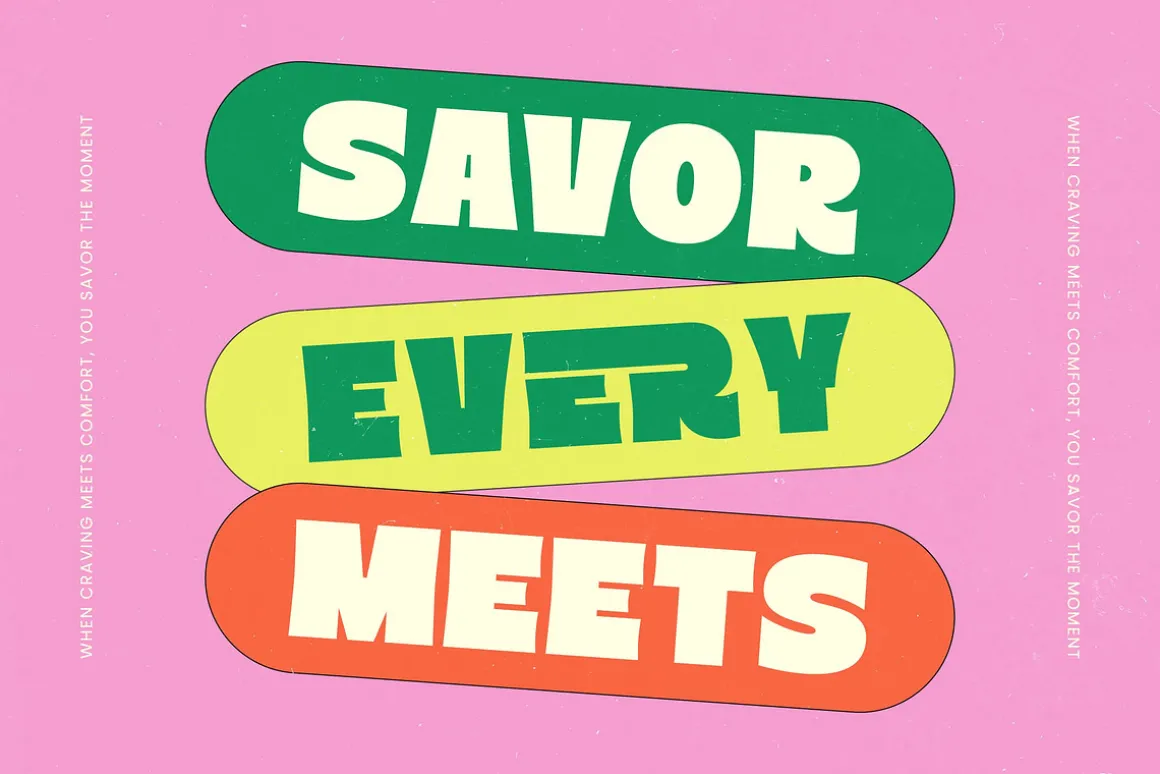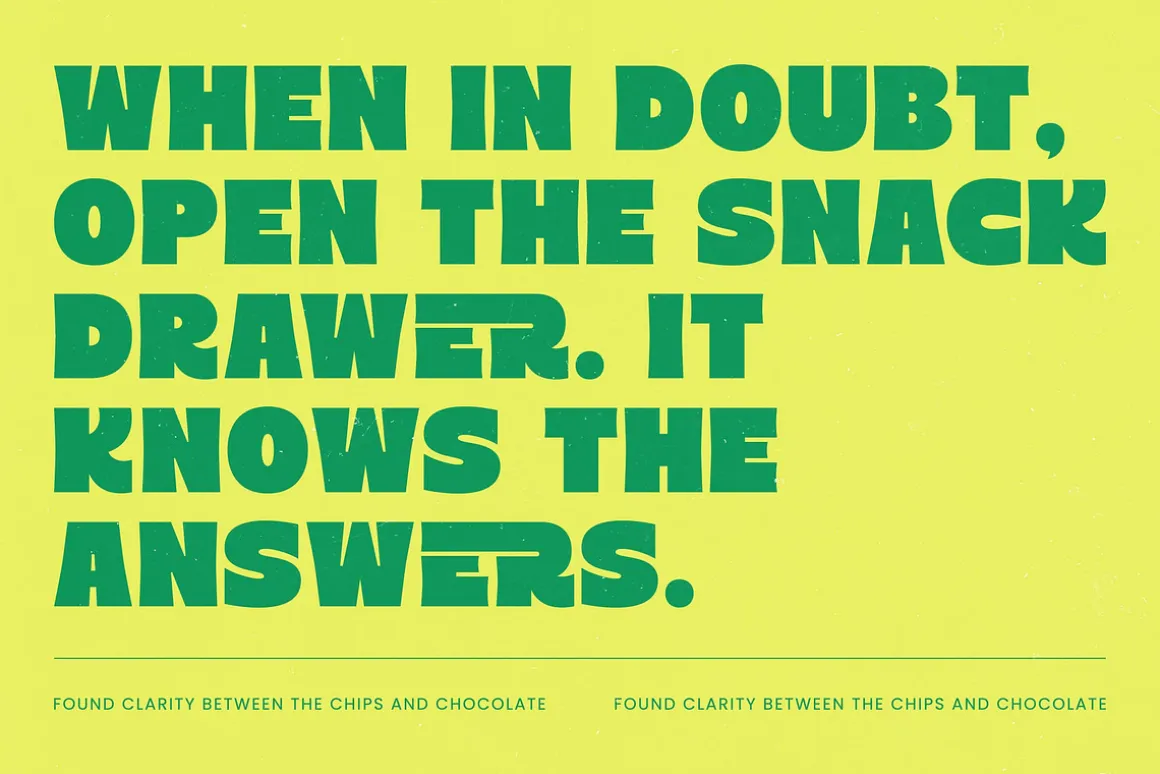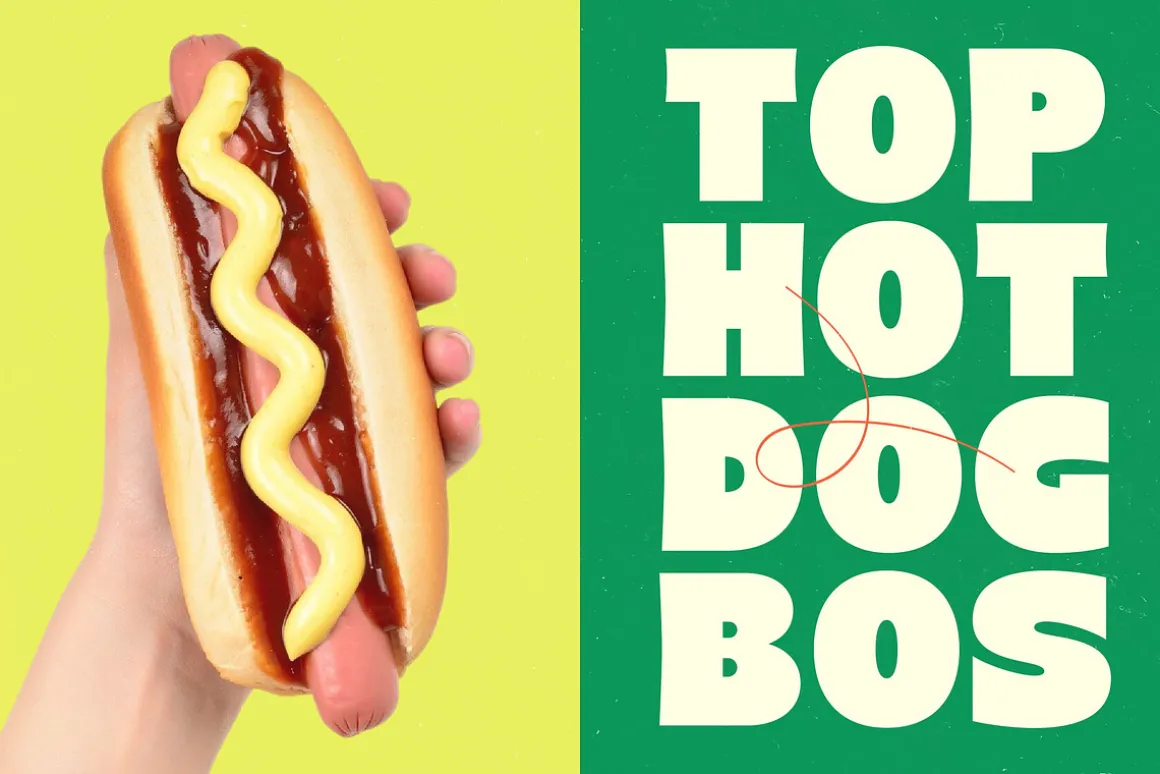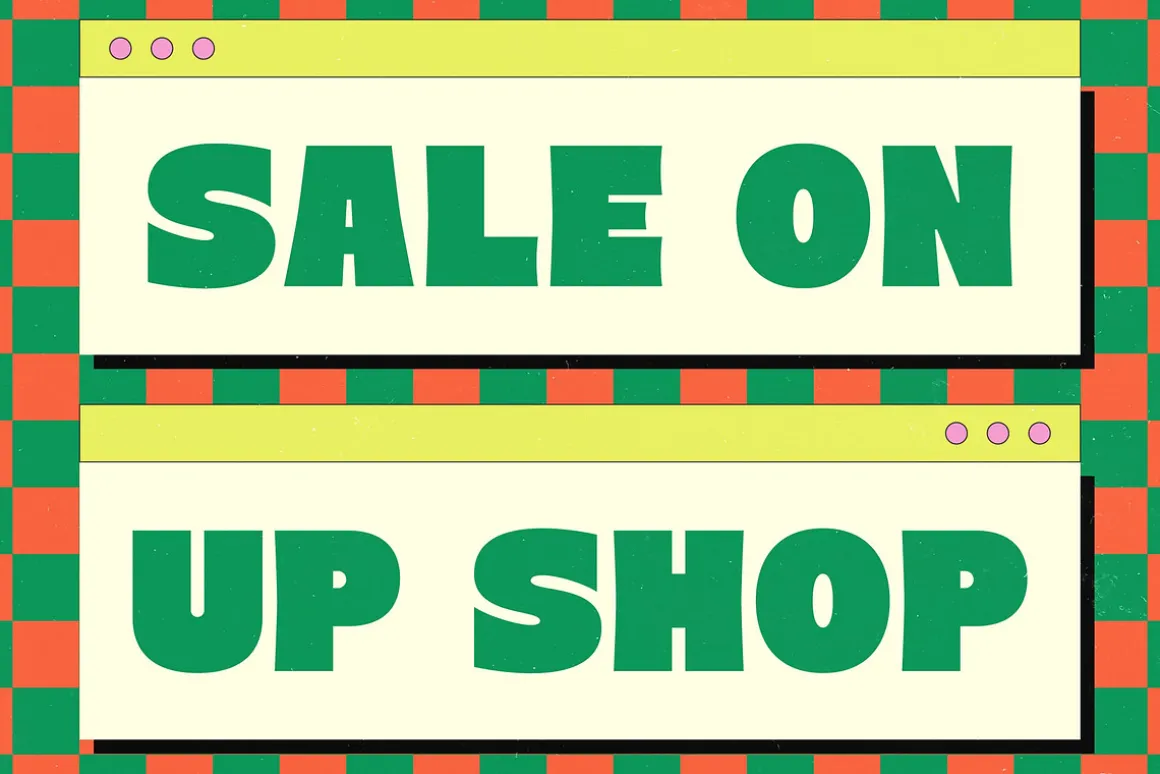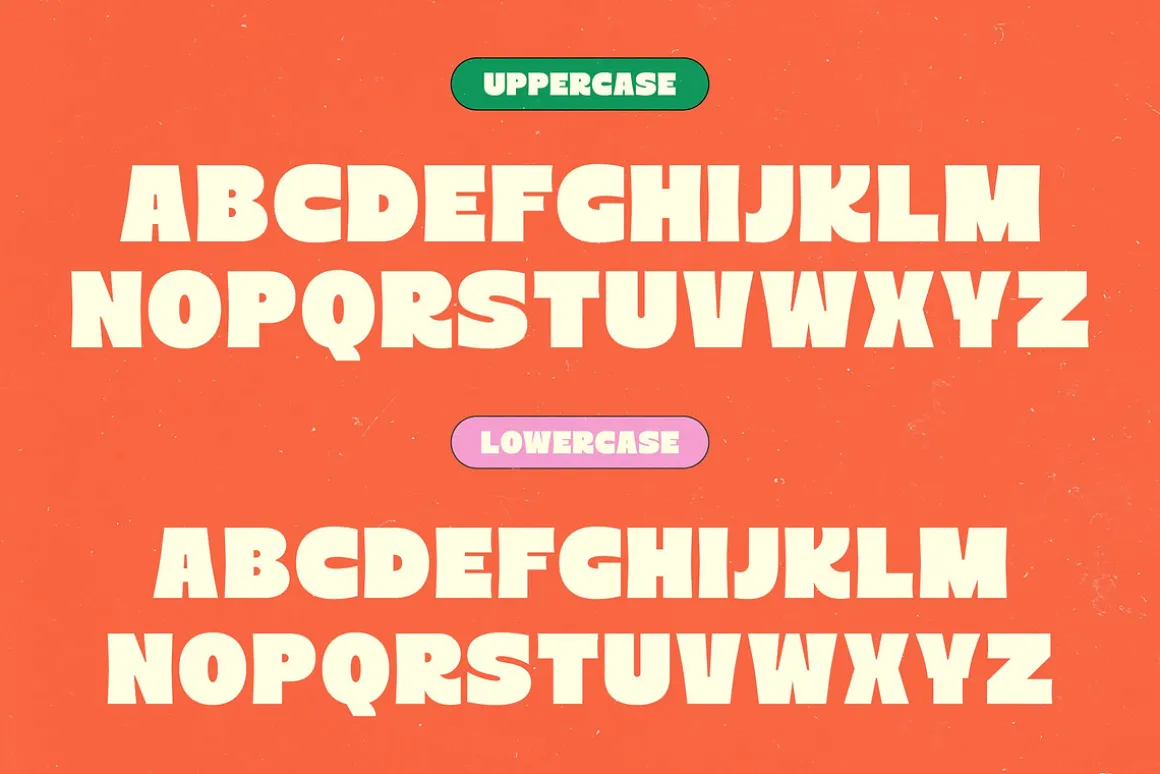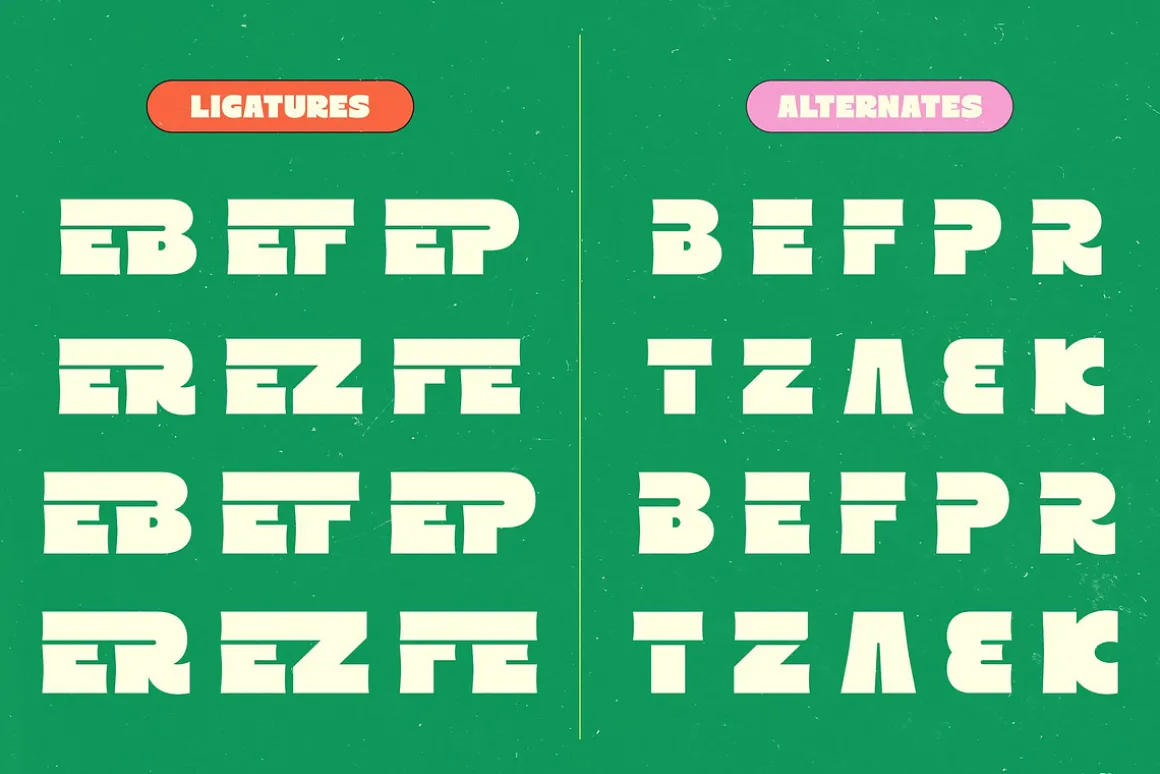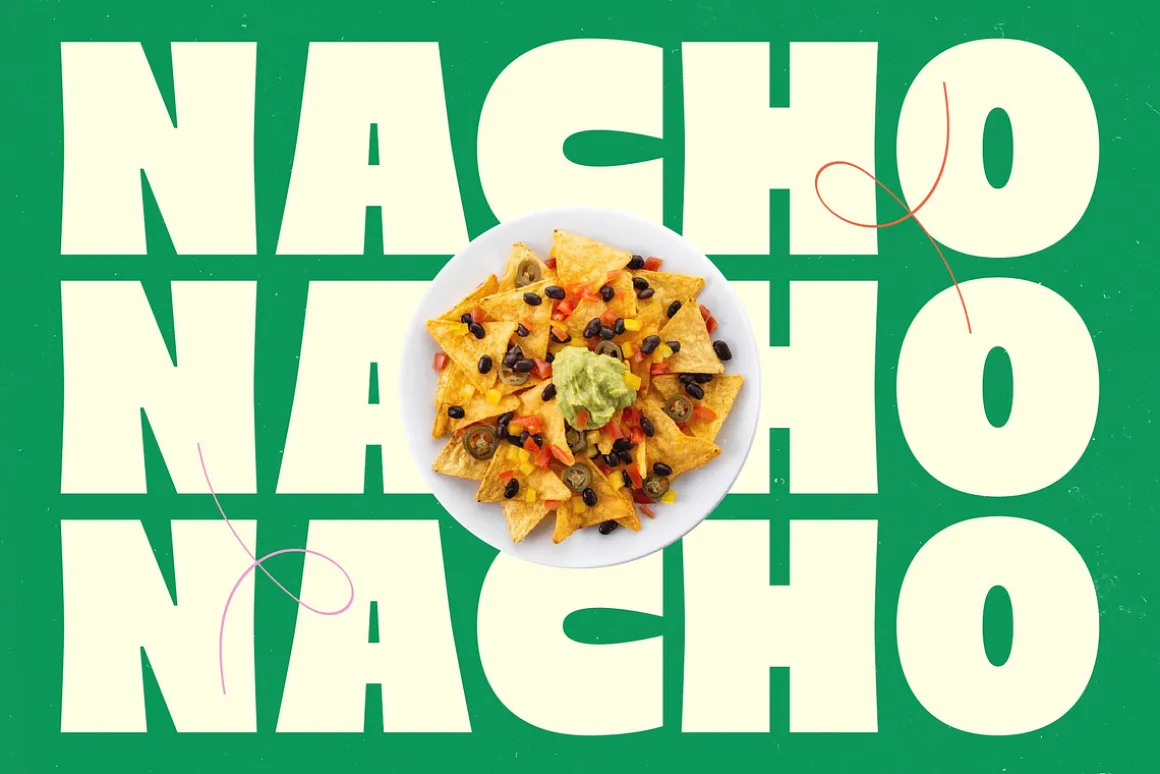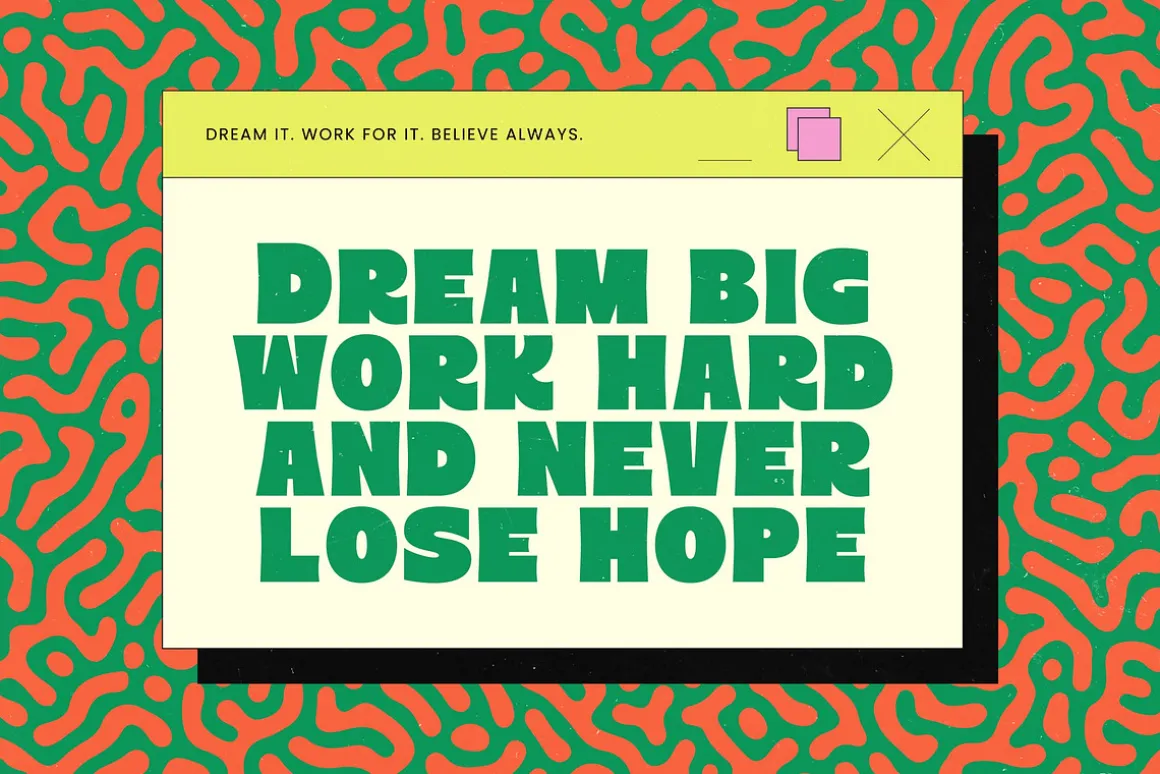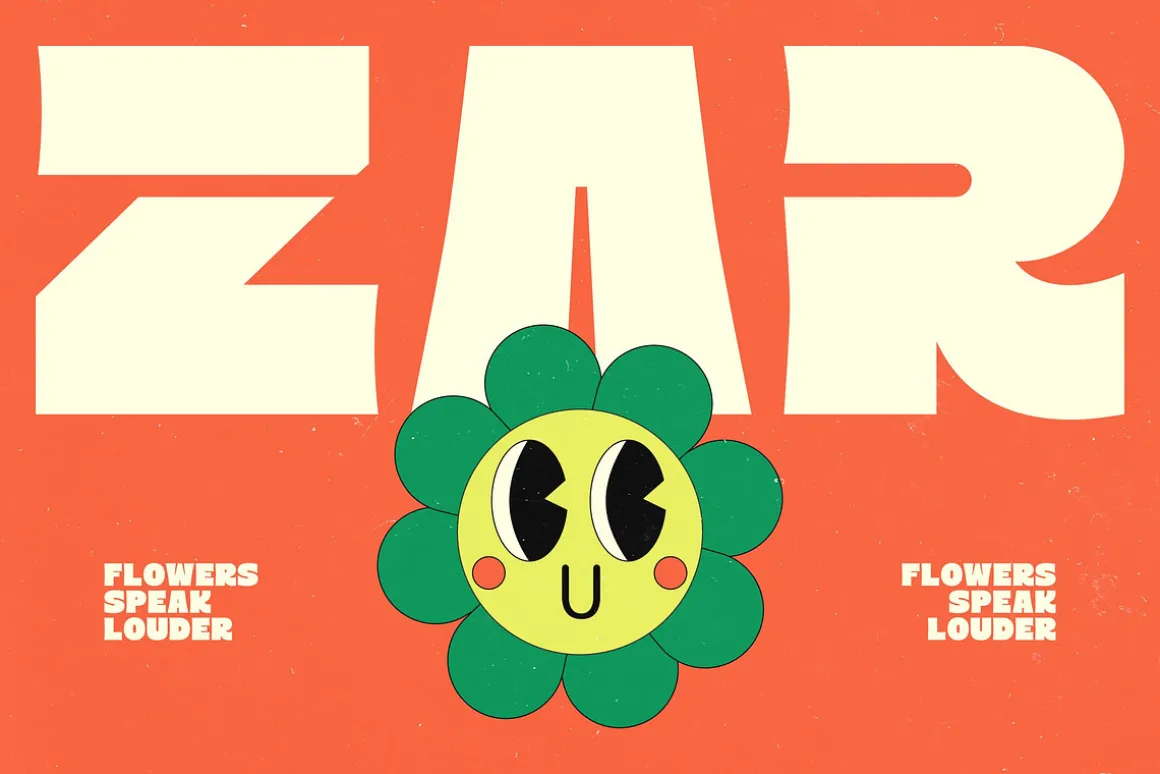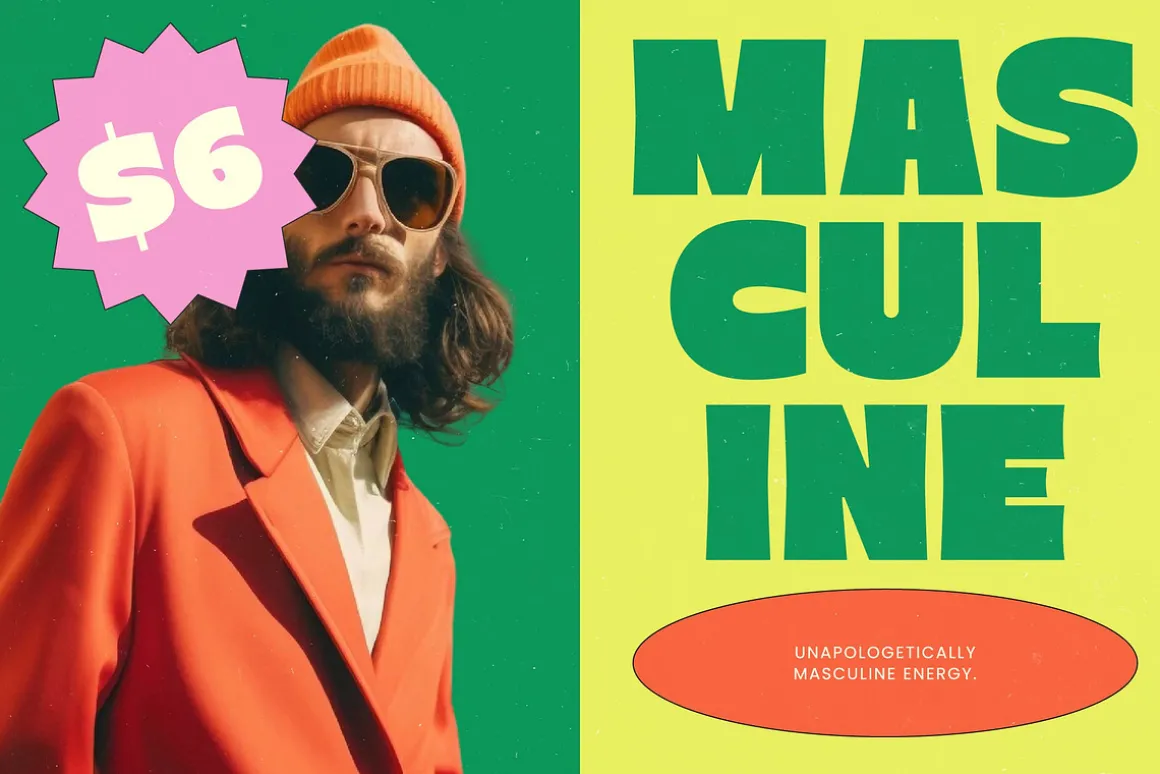
Order Snack is a bold statement piece designed to bring a delicious, high-energy rhythm to every visual canvas it occupies. This chunky display font is built for impact, combining thick, soulful curves with a contemporary edge that demands instant attention.
Drawing inspiration from the vibrant aesthetics of vintage food packaging and modern street culture, the font creates a playful yet powerful atmosphere. It captures a sense of nostalgia while pushing the boundaries of what a heavy-weight sans-serif can achieve in a digital-first world.
This modern serif display alternative provides a fresh take on luxury typography, delivering a high-contrast serif weight and feel through its massive sans-serif forms. As a go-to editorial font, it is engineered for maximum branding impact in projects that refuse to be ignored or overlooked.
Aligning with the modern serif trend and the shift towards maximalist design, this typeface is a staple for editorial display fonts enthusiasts. Its character-driven typography allows designers to craft unique narratives, making it a powerful tool for those looking to stay ahead of global design movements.
The versatility of this font makes it ideal for logo design and comprehensive branding systems, particularly for bold consumer goods and packaging. From high-fashion editorial spreads to streetwear fashion labels and even daring wedding invitations, it brings a distinct personality to every application.
This professional toolkit comes loaded with unique ligatures and creative alternates to expand your typographic possibilities. It features full multilingual support and a wide range of international characters, though it omits swashes in favor of a clean, robust silhouette that maintains legibility across all mediums.